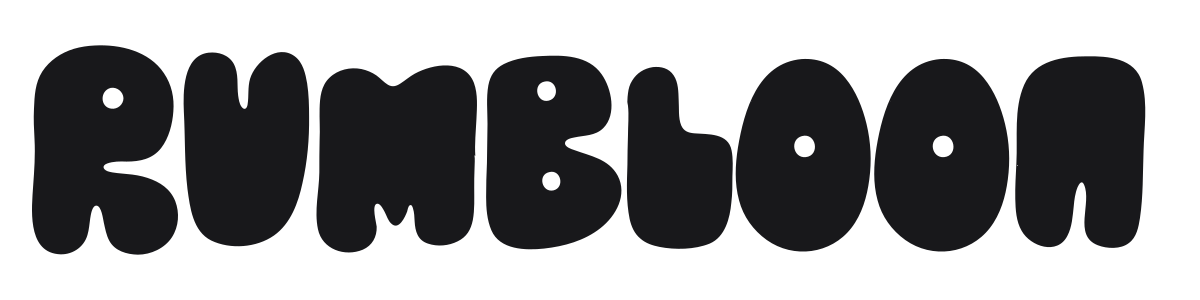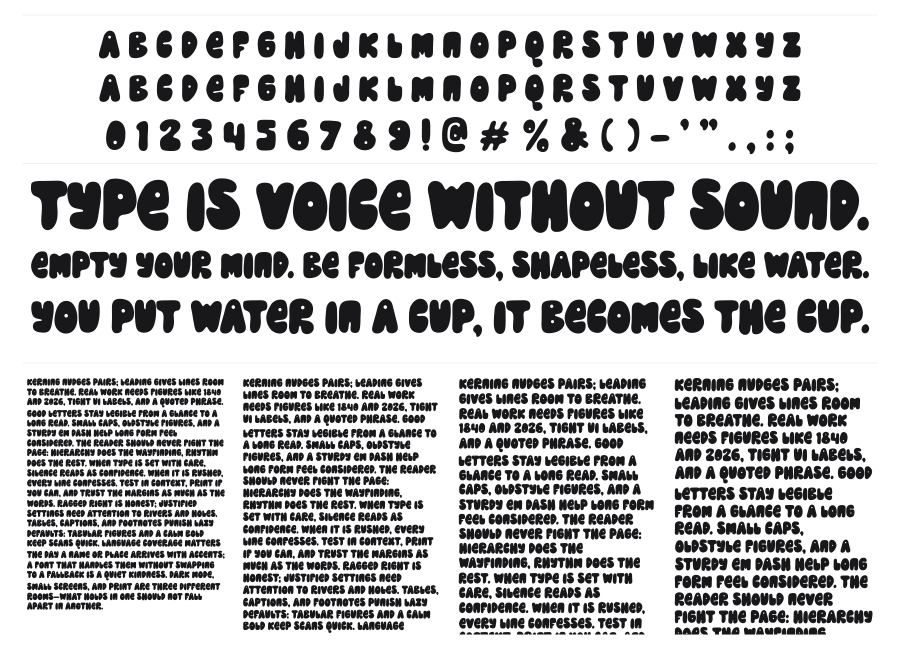
Rumbloon
Rumbloon is a heavy bubble display font with fully inflated, balloon-like characters and near-zero stroke contrast. Every curve is pushed to its maximum roundness, compressing internal counters into tight circular voids. It carries strong 1970s cartoon energy that works well for playful branding, game titles, and youth-oriented packaging.